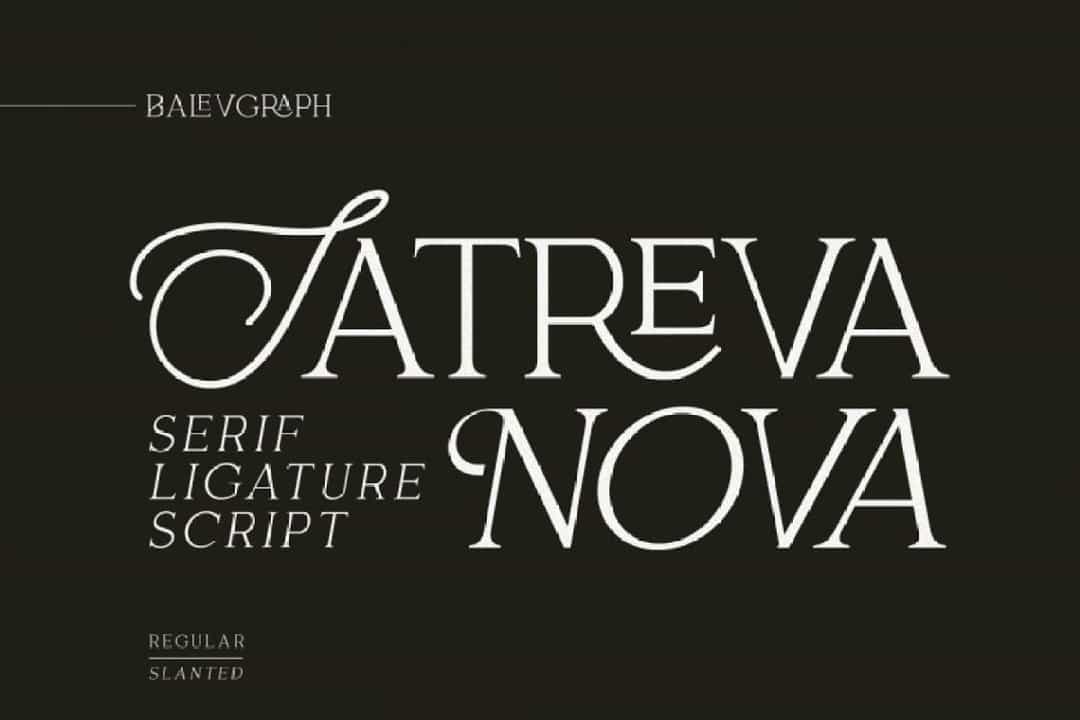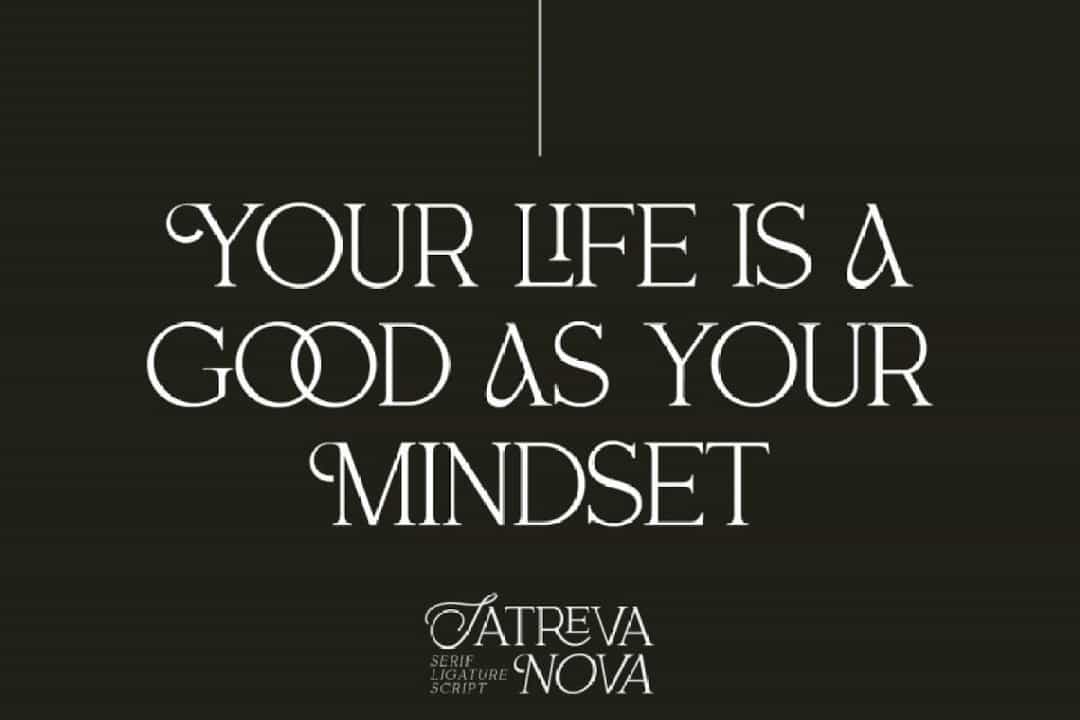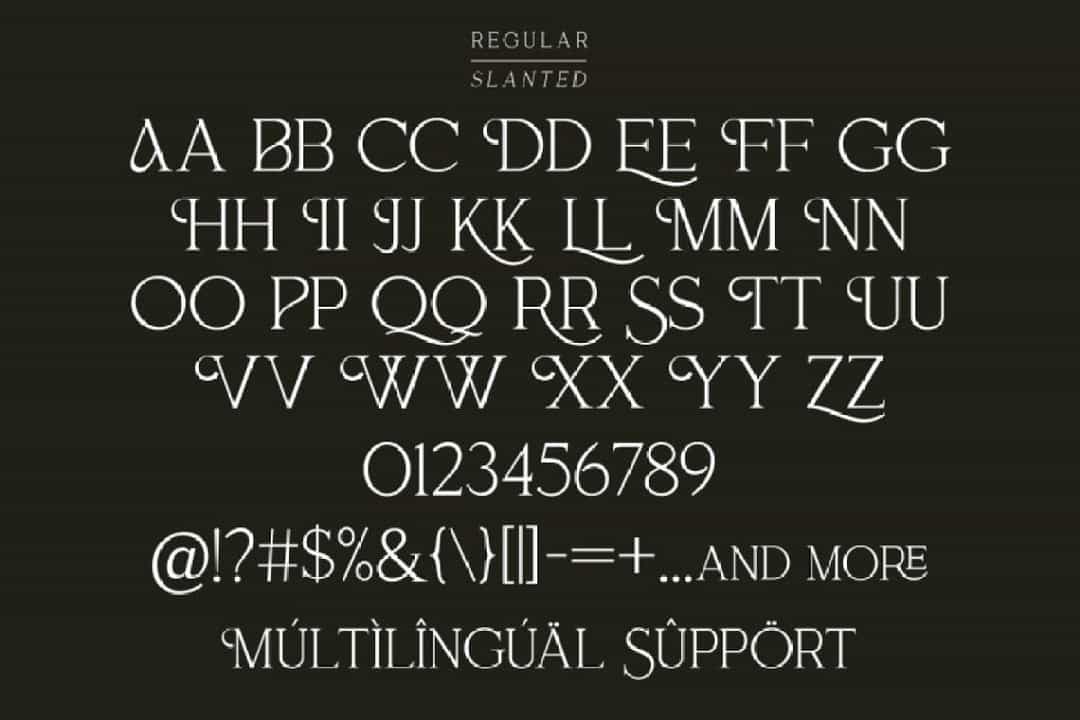
Satreva Nova can be described as an elegant combination of fonts (both serif and script) with a trendy edge, designed specifically to create contemporary, stylish designs for high-end elegant projects and feminine designs.